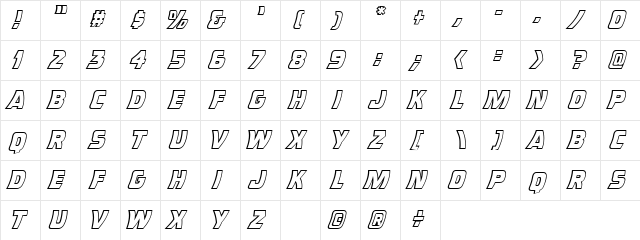
CC Double Back Future
Design Context for CC Double Back Typeface
CC Double Back has a distinctly futuristic character, with geometric precision and clean angles that feel at home in technology, gaming, and sci-fi contexts.
Pro Tip: Use CC Double Back in combination with a neutral sans for body text. Let it define the brand voice in headlines while keeping reading comfortable elsewhere.